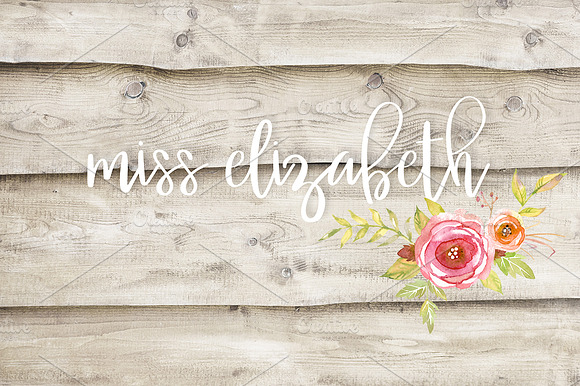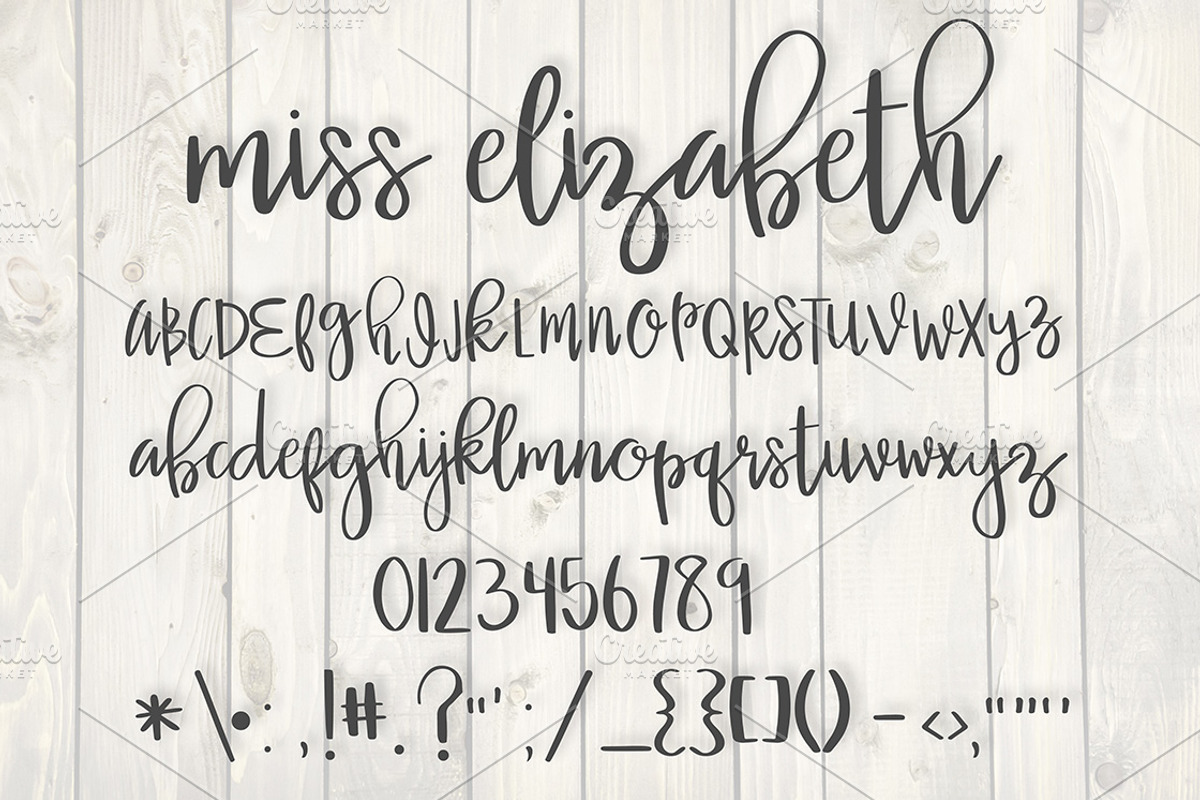
Miss Elizabeth Font
A pretty, handwritten script font. Perfect for greeting cards, stationary, scrapbooking, prints and more! Includes numbers, and punctuation.
- Includes numbers, and punctuation.
Miss Elizabeth Font by Miss Kate fits naturally into Branding, posters, packaging, typography.